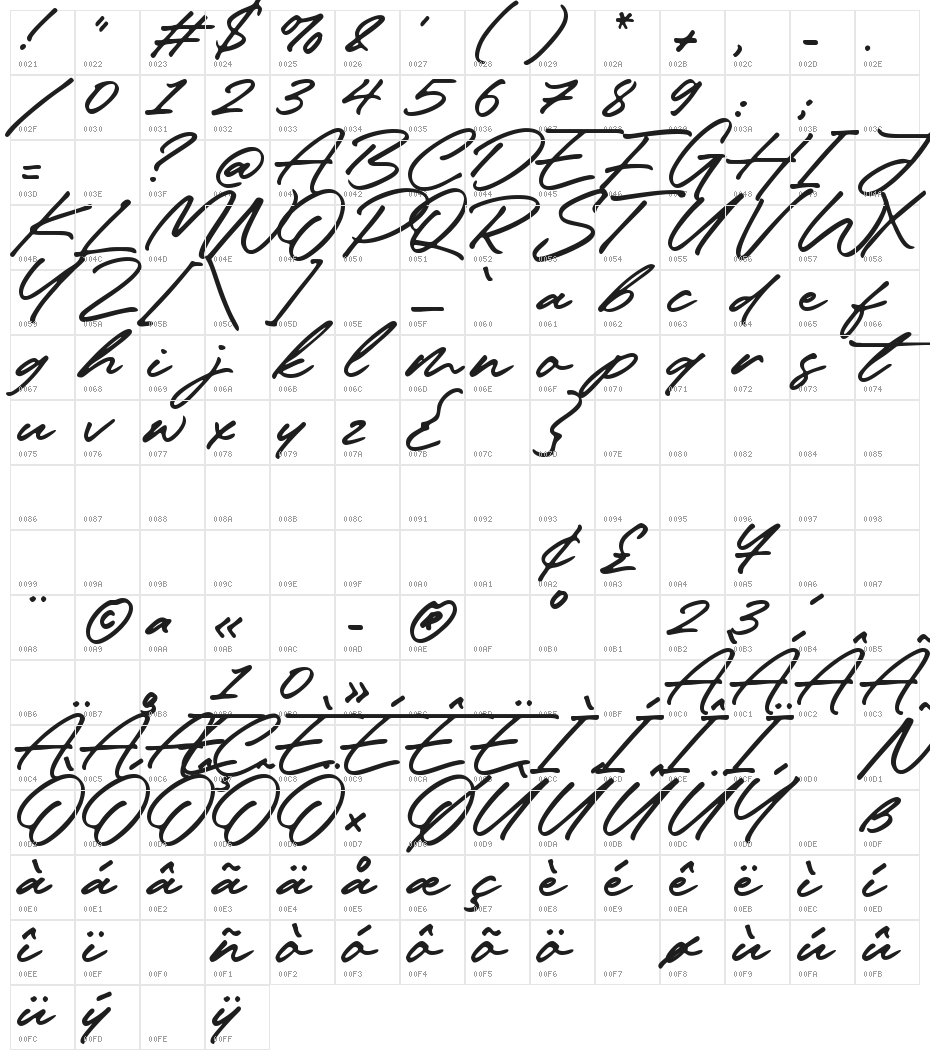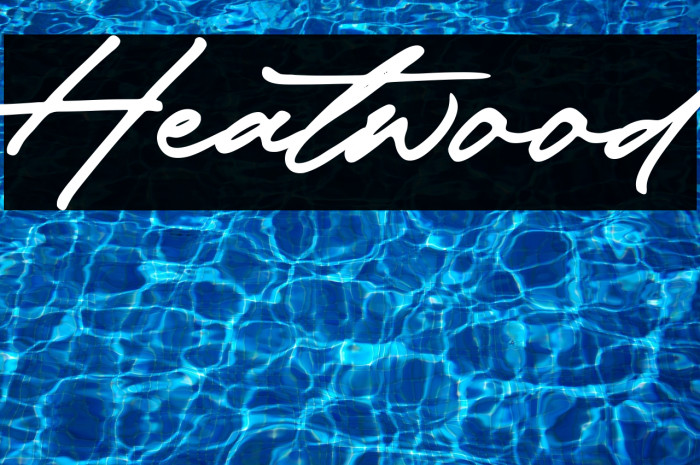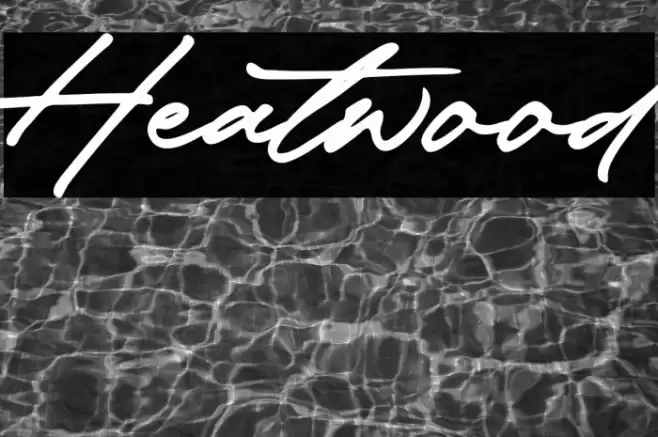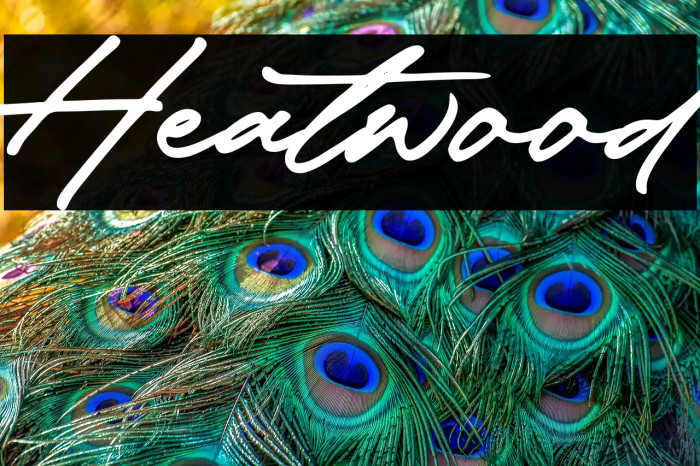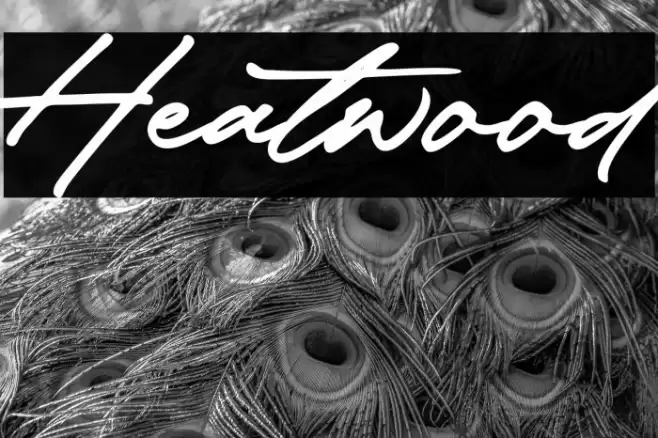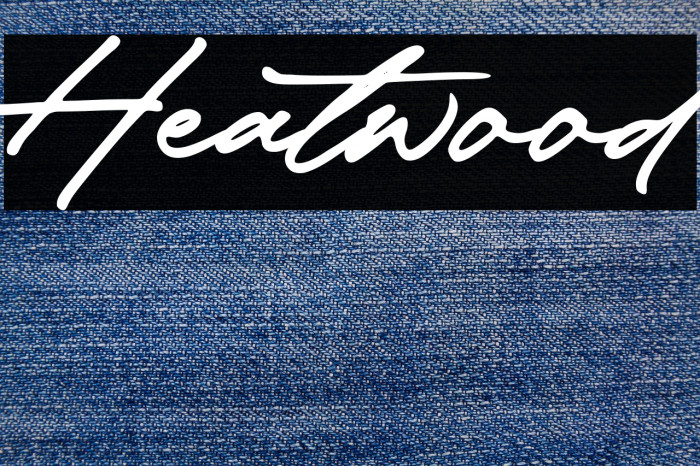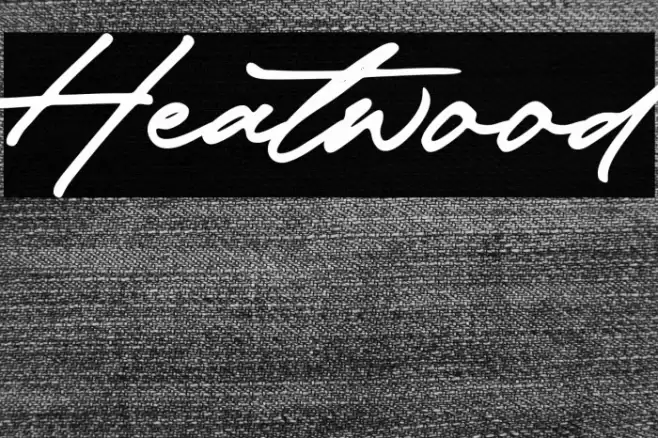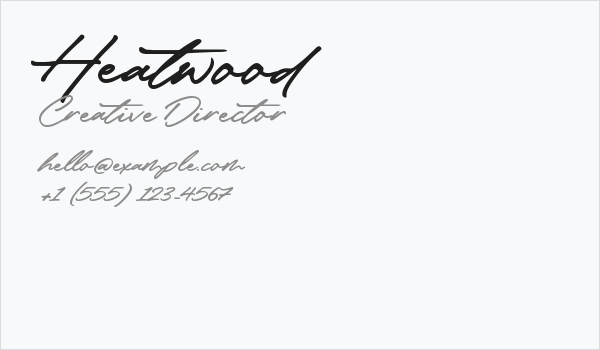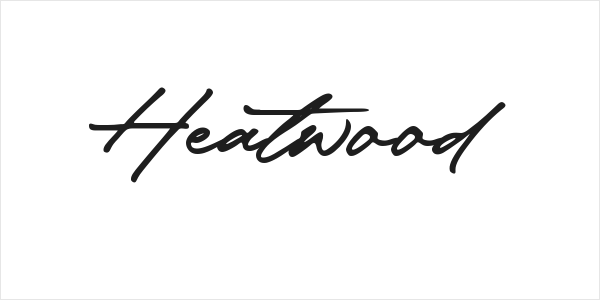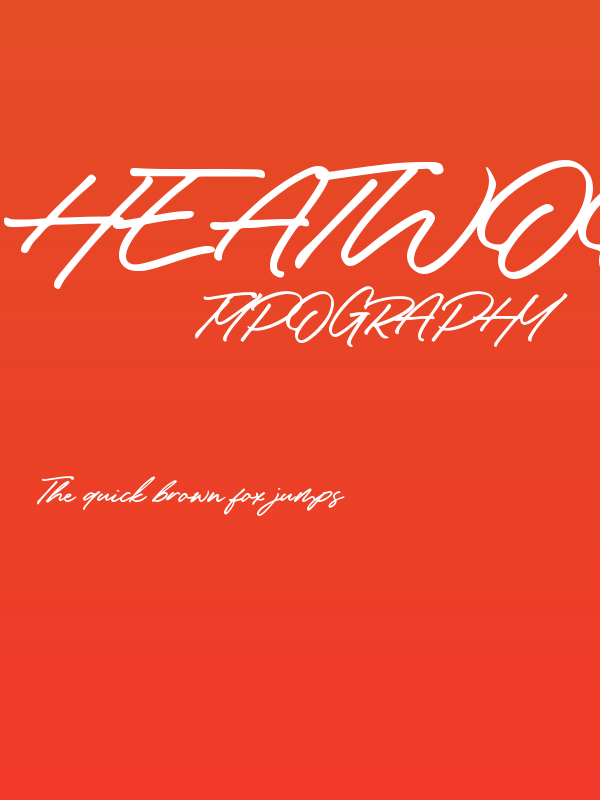
Heatwood Font
Heatwood Description
This font exudes a dynamic and energetic feel, characterized by its fluid, cursive script style. The letters are interconnected, mimicking the natural flow of handwriting, which adds a personal and informal touch. The strokes are bold and confident, with a slight slant that enhances its casual elegance. The uppercase letters maintain a consistent height, while the lowercase letters vary slightly in size, adding to the organic appearance. The numerals and special characters follow the same flowing style, ensuring a cohesive look across all text. This font is ideal for projects that require a personal, handwritten aesthetic.
| Proposed Projects | Ideal for wedding invitations, greeting cards, personal branding, and creative projects that require a handwritten touch. |